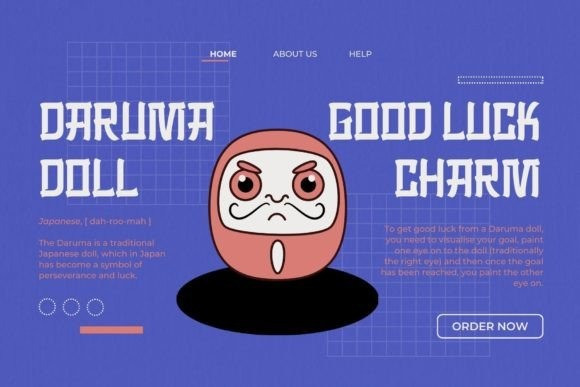
Chinese Shangai Font
Chinese Shangai Display Font. This modern display font draws inspiration from traditional Chinese calligraphy, with bold, striking brush strokes that exude confidence and power. Its contemporary style and elegant simplicity make it perfect for a range of design applications, from branding to print and digital media, where it can add a touch of cultural richness and sophistication.